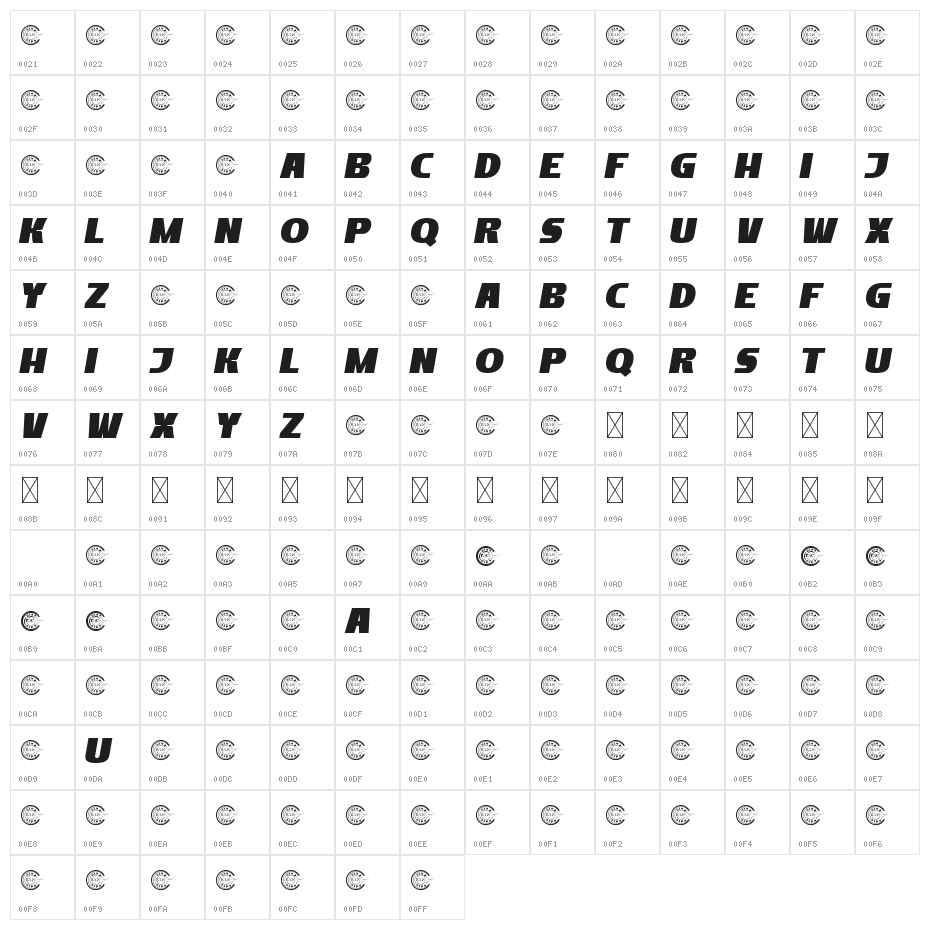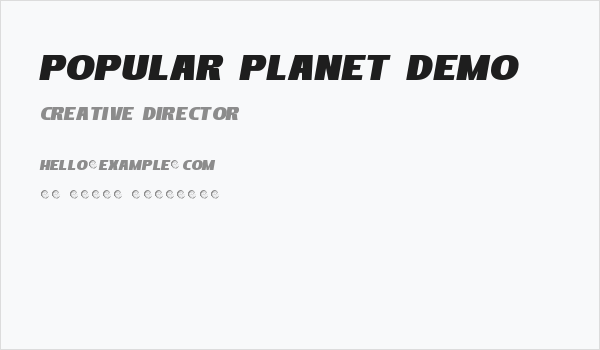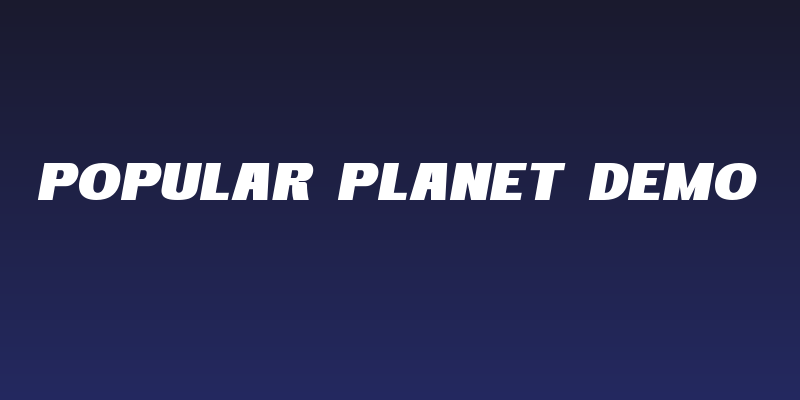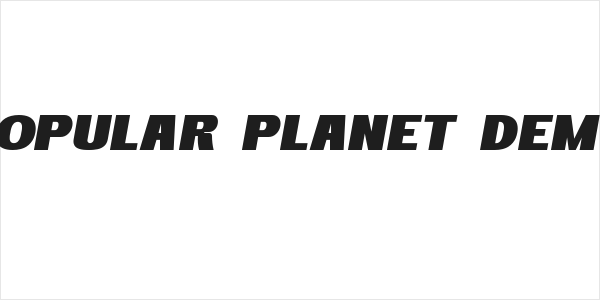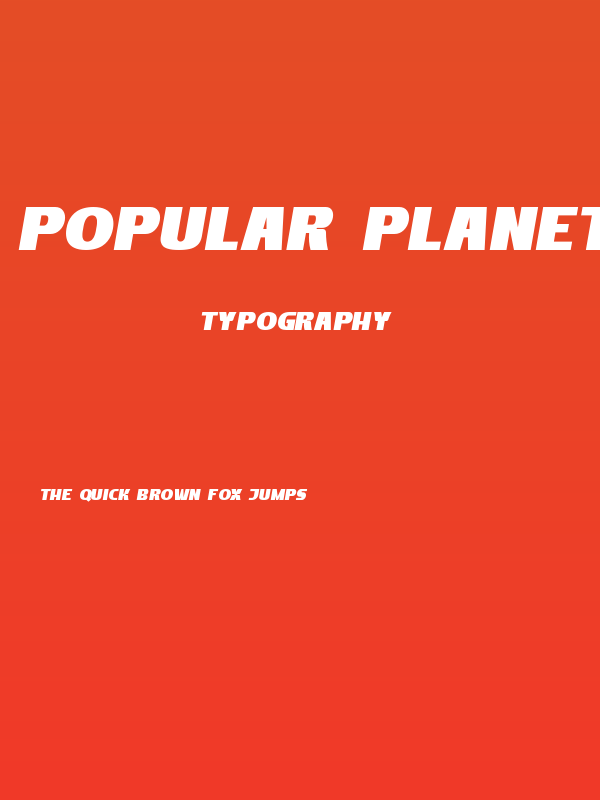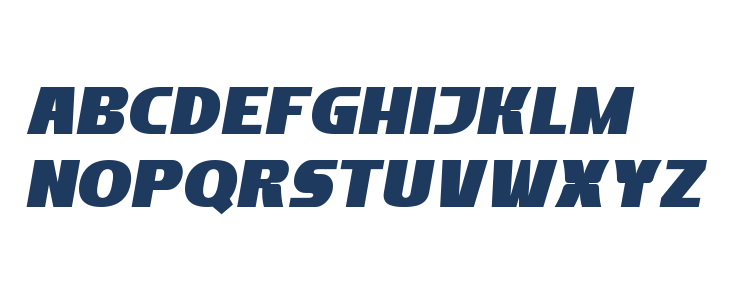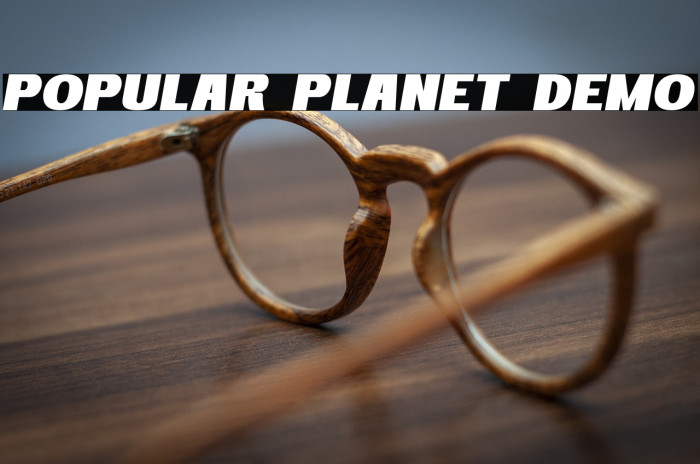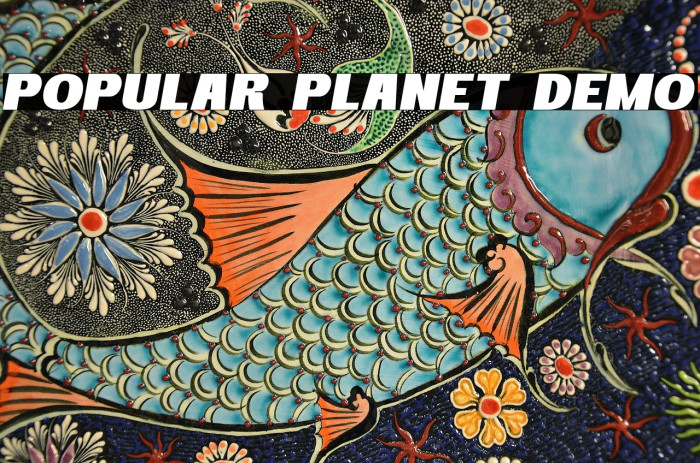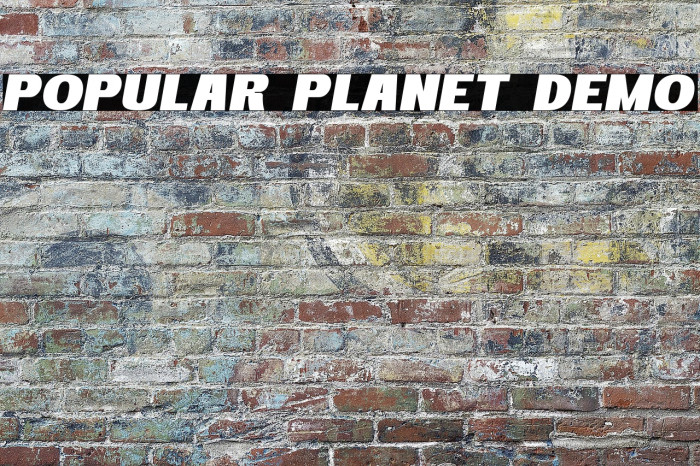
Popular Planet Demo Font
Popular Planet Demo Description
Bold, italic, sans-serif font with a modern and dynamic appearance, featuring thick strokes and a slight slant.
| Overall Style | Modern, Dynamic |